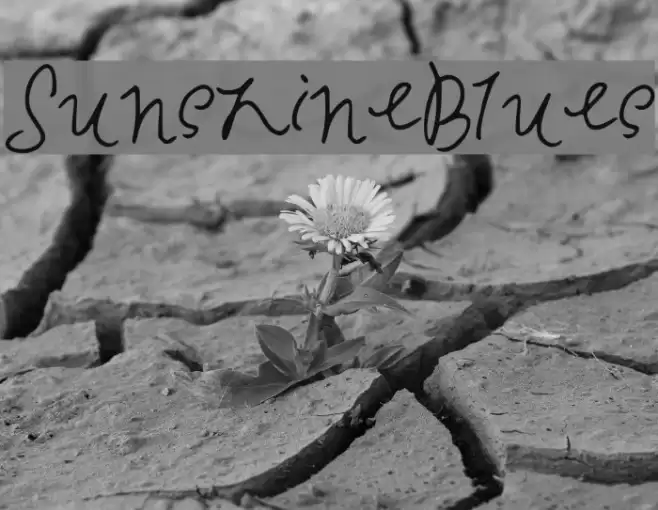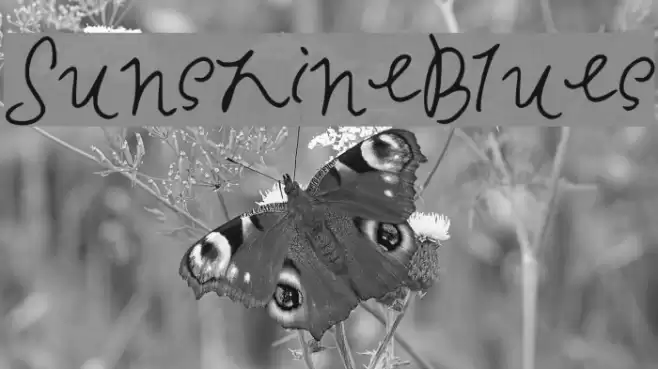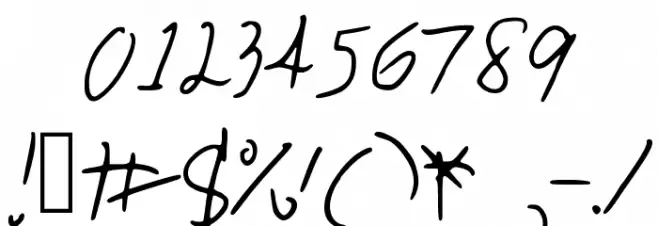
SunshineBlues Font
SunshineBlues Description
This font exudes a casual and friendly handwritten style, characterized by its fluid and connected strokes that mimic natural handwriting. The letters are slightly slanted, adding a dynamic and informal touch. The uppercase letters maintain a consistent height, while the lowercase letters vary, enhancing the handwritten feel. The numerals are clear and legible, matching the overall style. Special characters are creatively integrated, maintaining the playful and approachable aesthetic. This font is perfect for projects that require a personal and warm touch, such as invitations, greeting cards, or personal branding.
A casual, handwritten font with fluid, connected strokes and a friendly appearance from Handwritten fonts.
- Overall Style: Casual